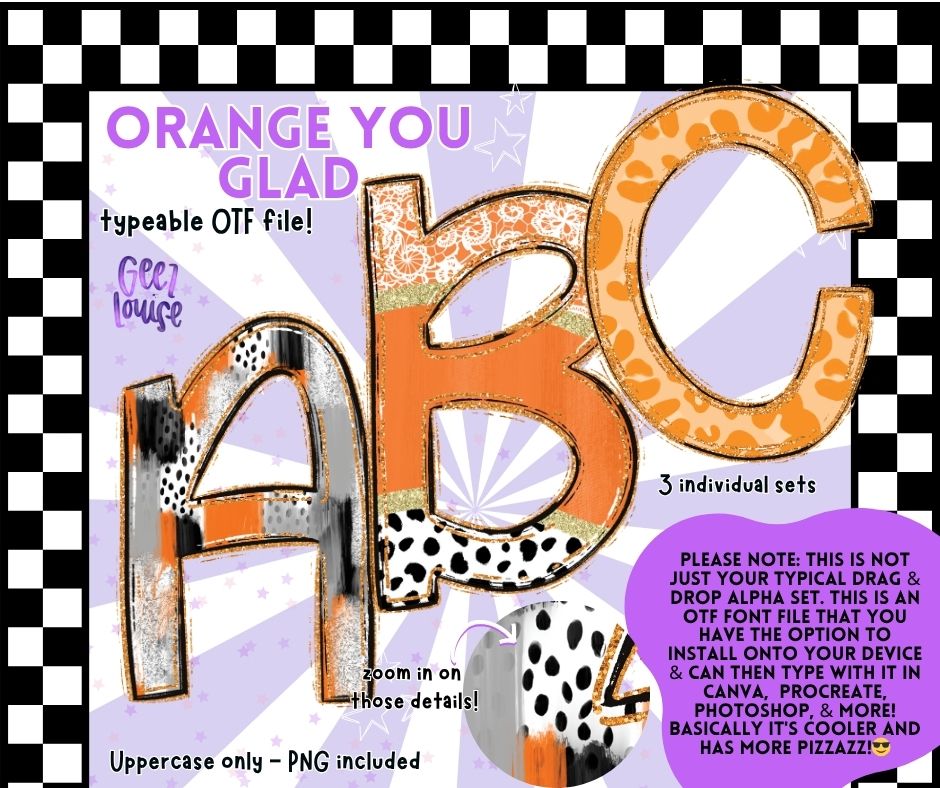
Orange You Glad Alpha Font – 3 Style OTF + PNG Uppercase Set
Say hello to juicy creativity with the Orange You Glad OTF font set! This uppercase-only alpha bundle includes 3 bold, playful styles in vibrant orange patterns—leopard print, lace swirl, and polka dots. Each style comes as a typeable OTF file and PNG clipart, perfect for digital crafters and DIY designers.
3 individual uppercase fonts (orange-themed: lace, spots, and animal print)
Designed for bold branding and playful seasonal projects, Orange You Glad delivers punchy personality with every letter.